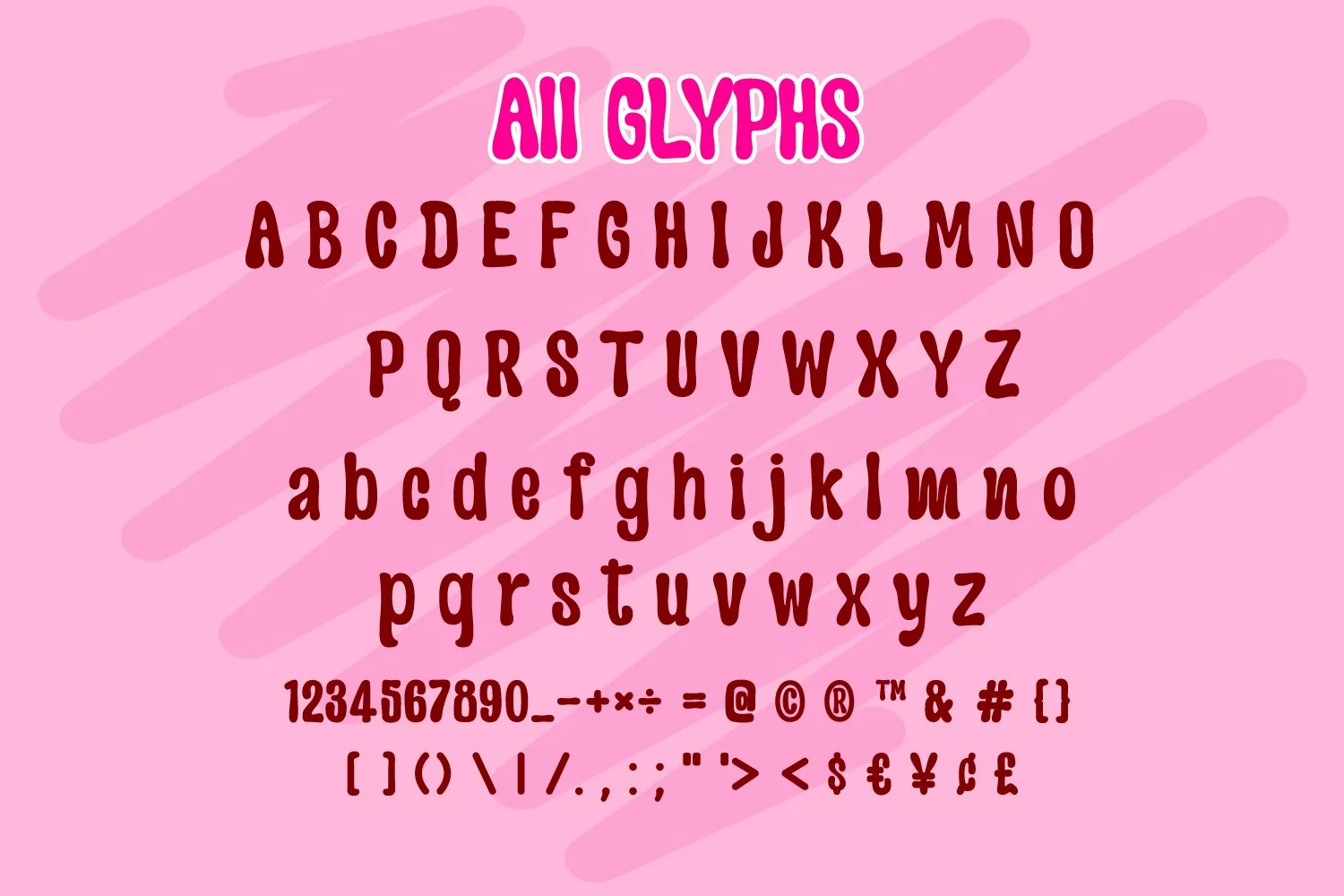
Home of Love is an adorable display font with a groovy. Quirky and a little funky. This font has the potential to elevate any creation while adding a groovy touch. Whether you’re using it for crafts, digital design, presentations, or greeting cards, this font has the potential to become your favorite, no matter the occasion!